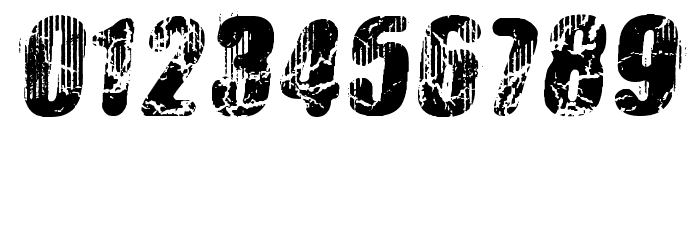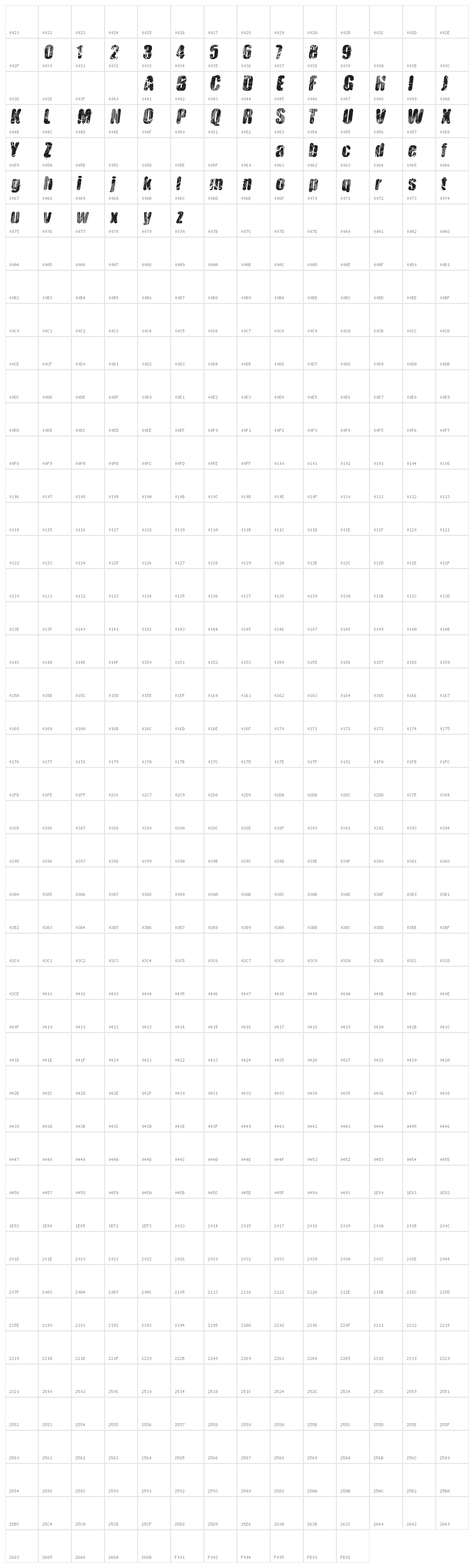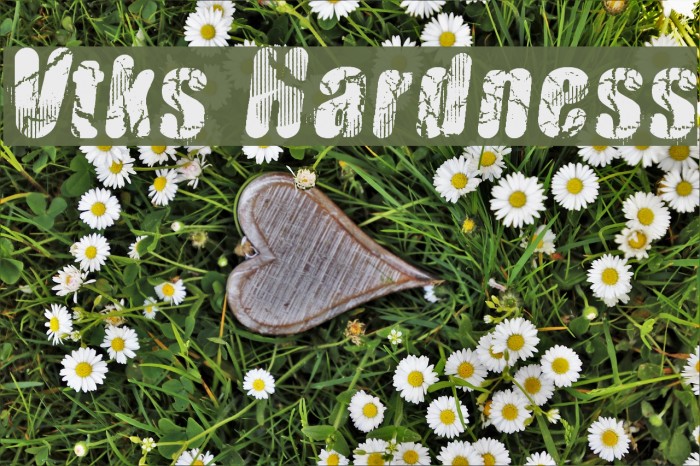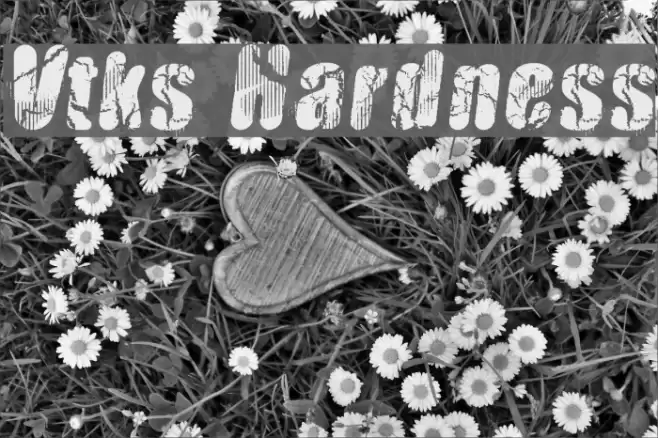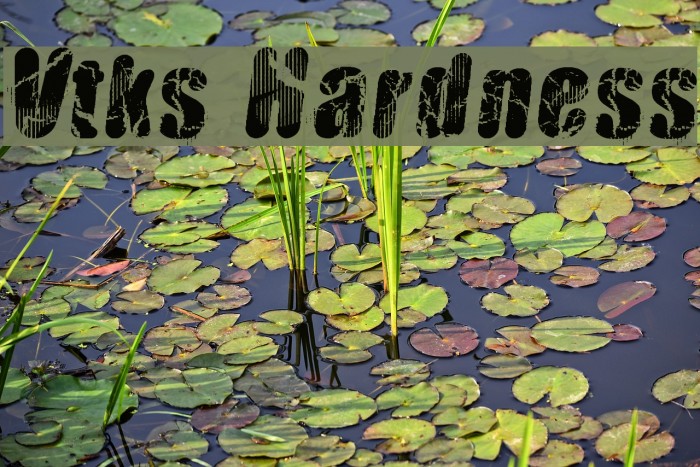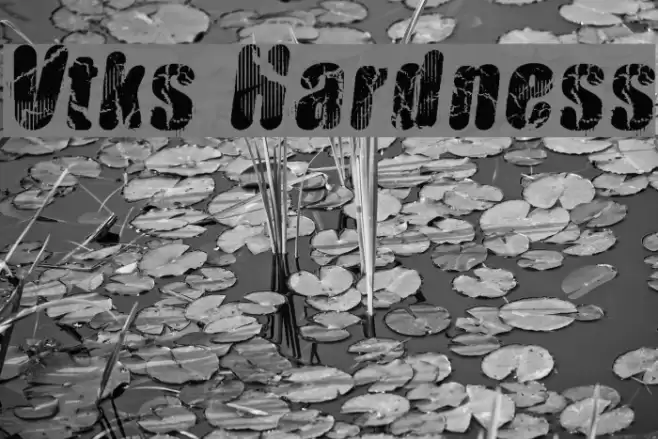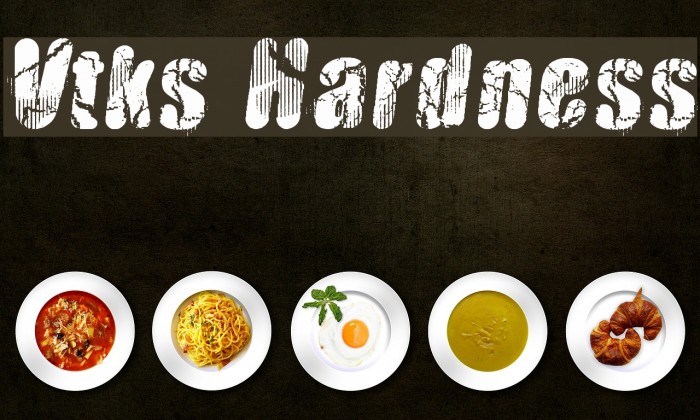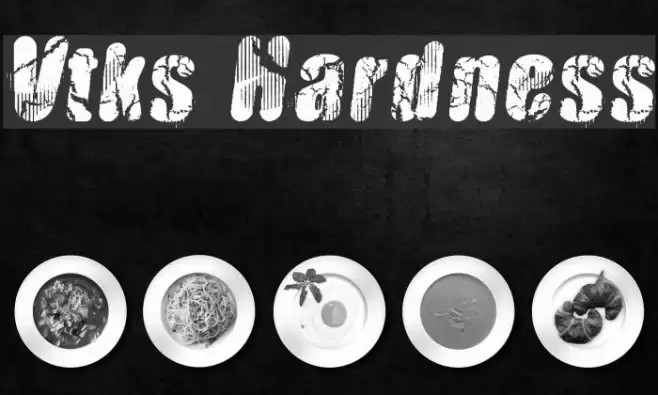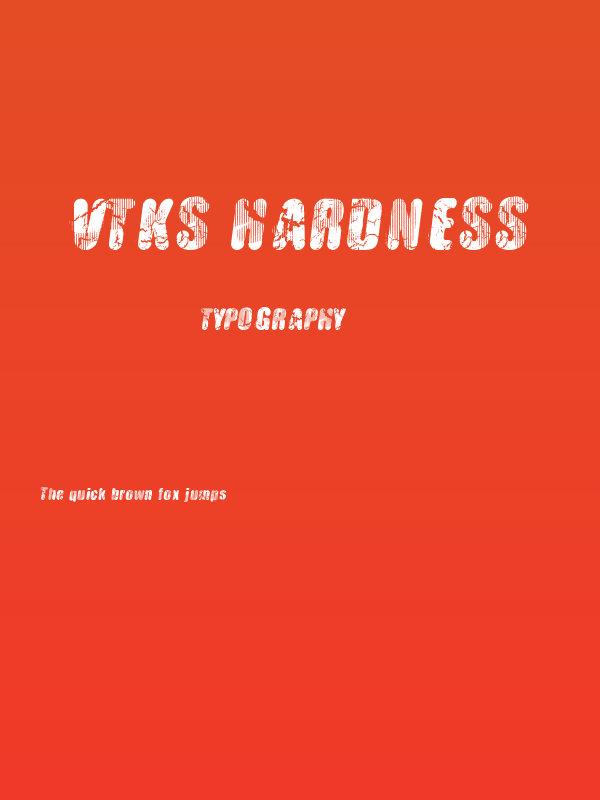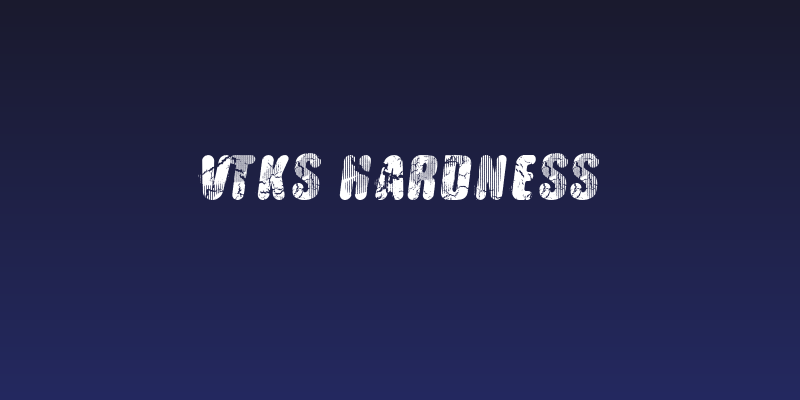
Vtks Hardness Font
Vtks Hardness Description
This font features a rugged, distressed appearance with a bold and impactful style. The letters are heavily textured, giving them a worn and weathered look, reminiscent of industrial or grunge aesthetics. The strokes are thick and uneven, with a high contrast between the filled and empty spaces, creating a dynamic and eye-catching effect. The font maintains a consistent width across characters, contributing to its bold presence. It is well-suited for projects that require a strong, edgy, and unconventional typeface.
| Overall Style | Grunge, Industrial |
| Proposed Projects | Ideal for album covers, posters, urban-themed designs, and branding that requires a gritty, industrial look. |